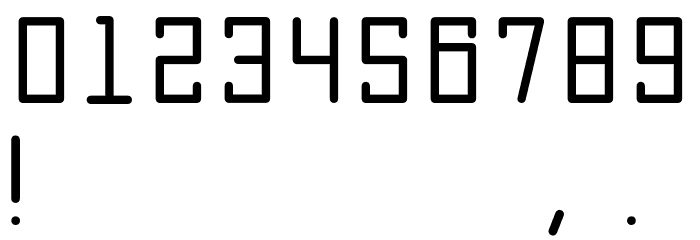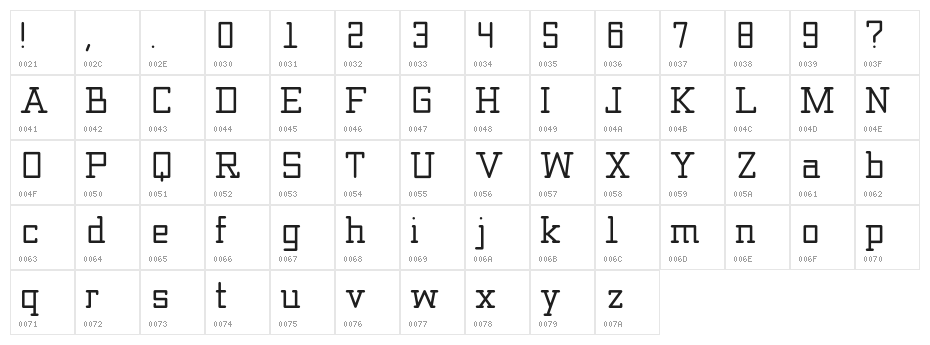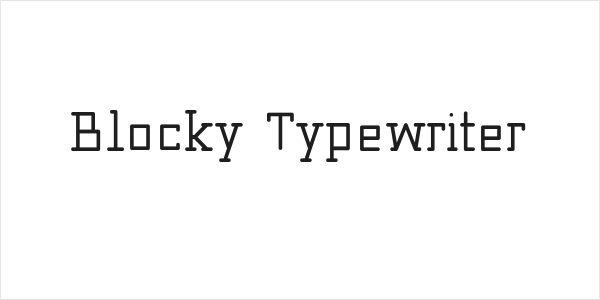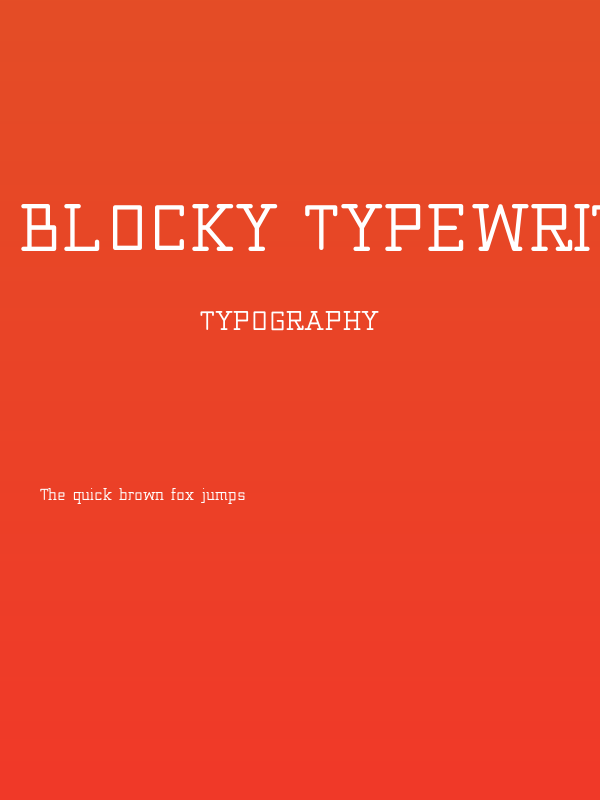
Blocky_Typewriter Font
Blocky_Typewriter Description
This font features a distinct, monospaced design reminiscent of classic typewriter styles. Each character is uniformly spaced, giving it a mechanical and structured appearance. The letters are blocky with rounded edges, providing a modern twist to the traditional typewriter aesthetic. The uppercase and lowercase letters maintain a consistent height, enhancing readability and uniformity. The numerals and special characters are designed with the same blocky style, ensuring a cohesive look across all text. This font is ideal for projects that require a vintage or retro feel while maintaining a clean and organized presentation.
| Proposed Projects | Ideal for retro-themed designs, coding interfaces, typewriter art, and any project requiring a vintage aesthetic. |